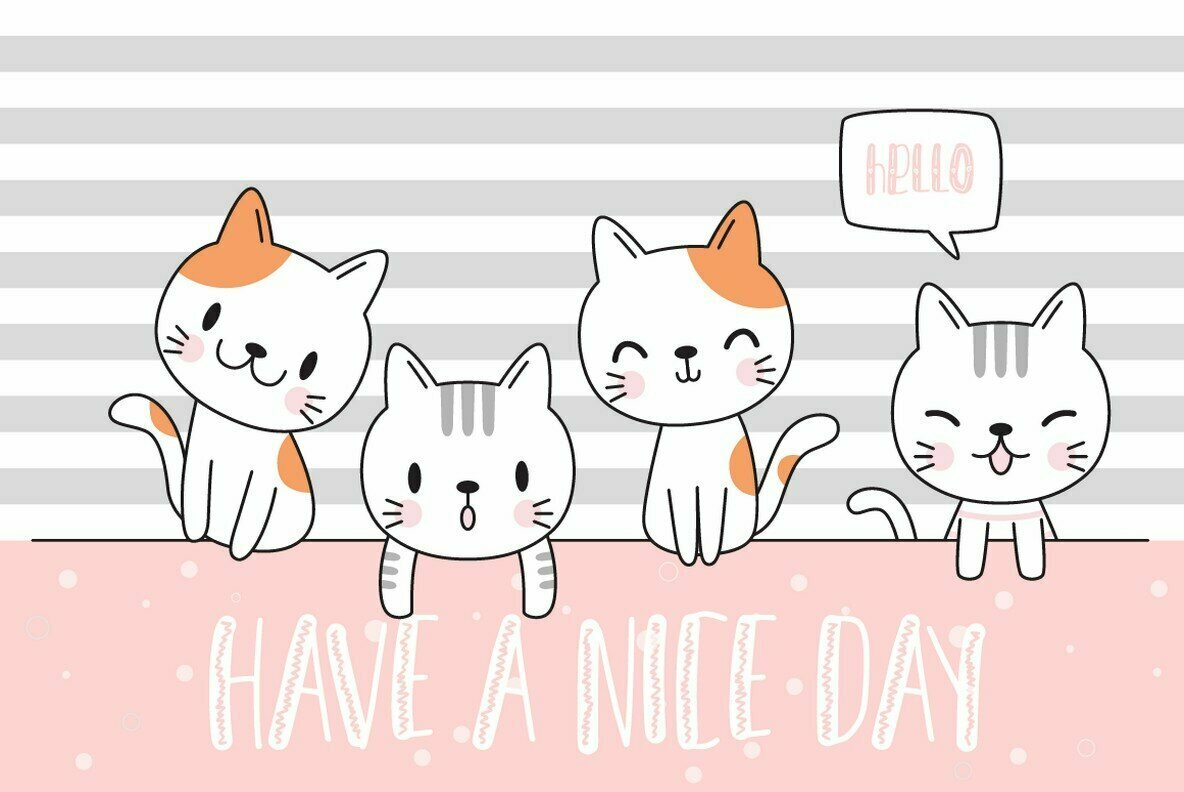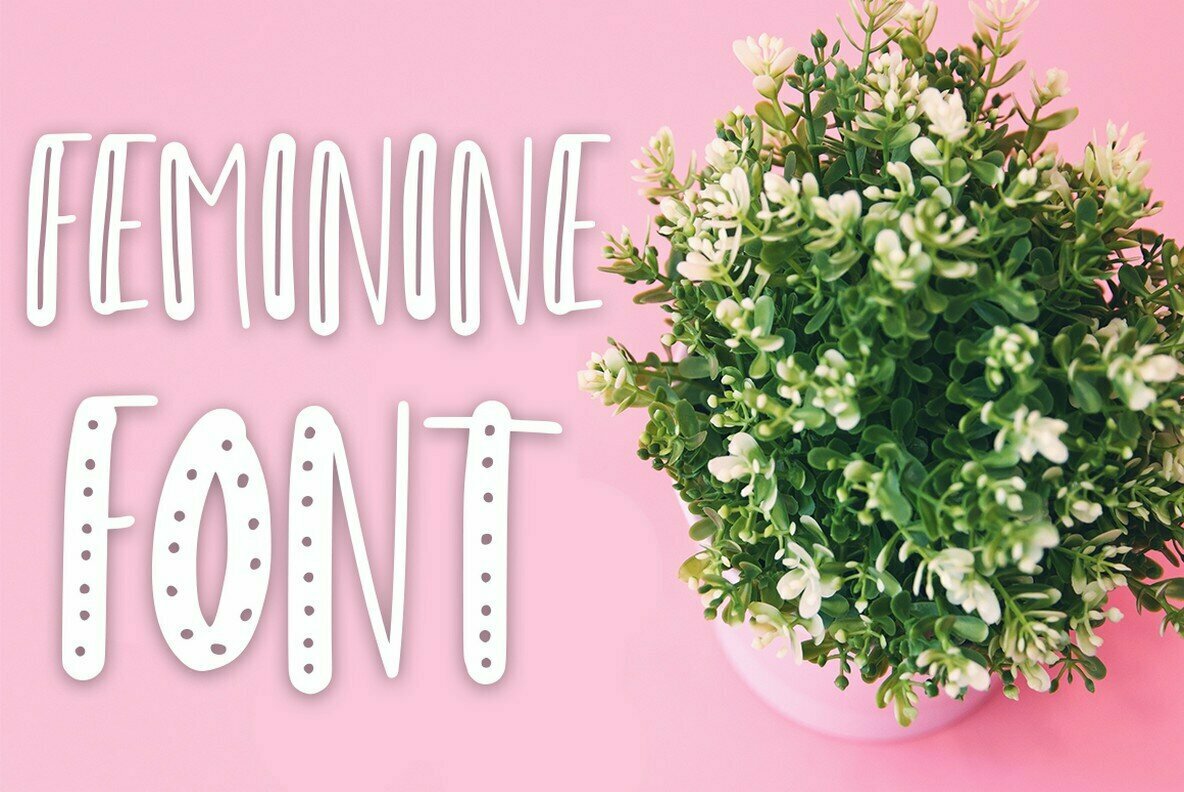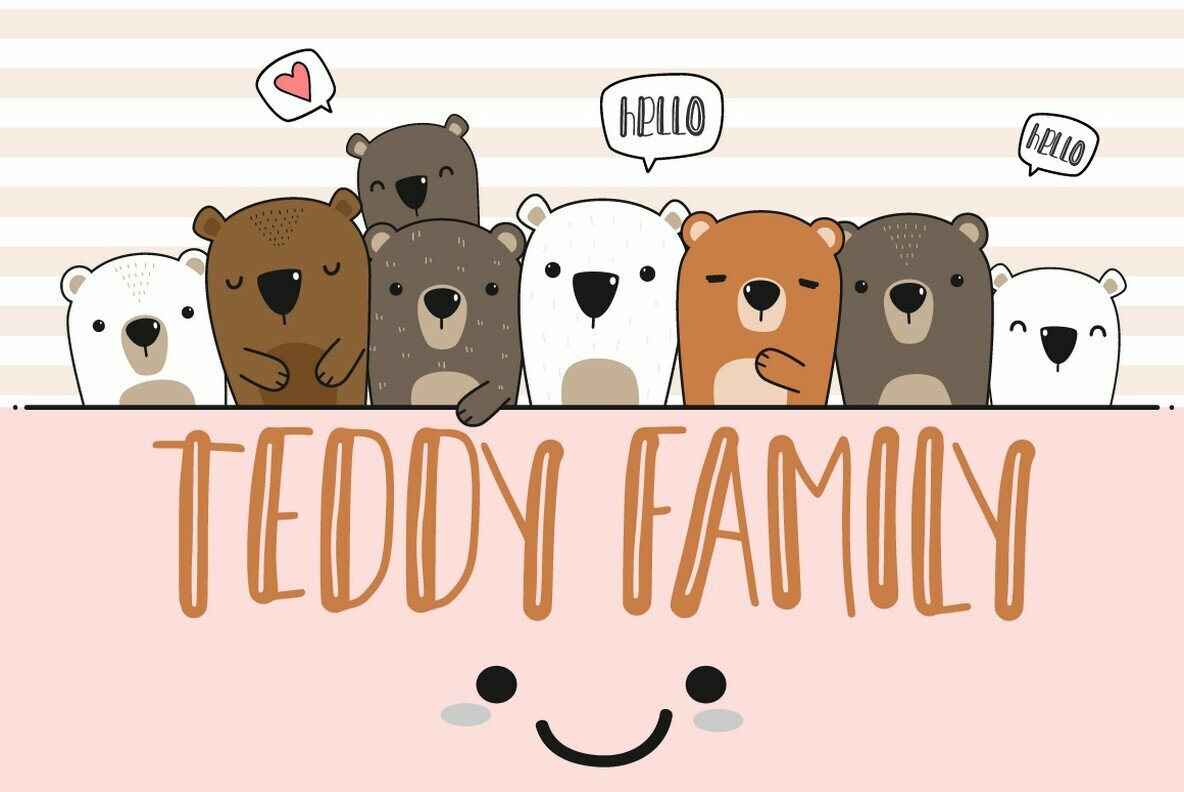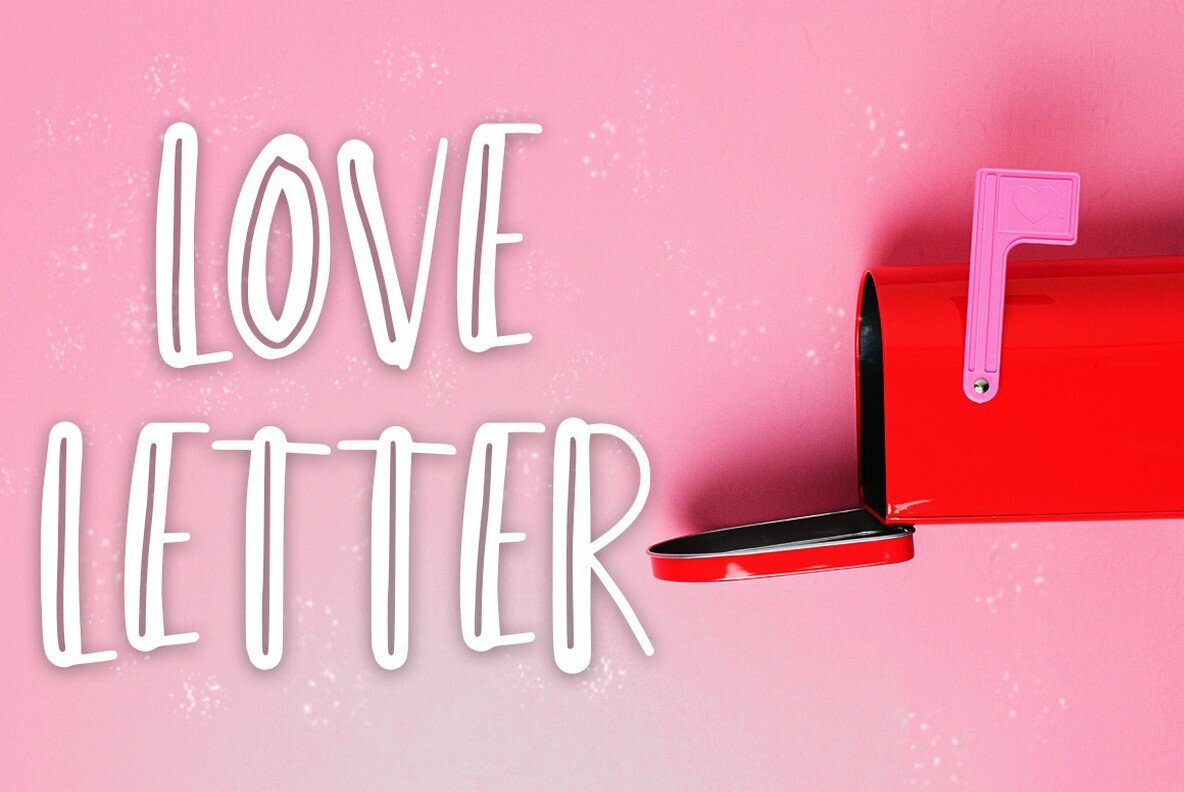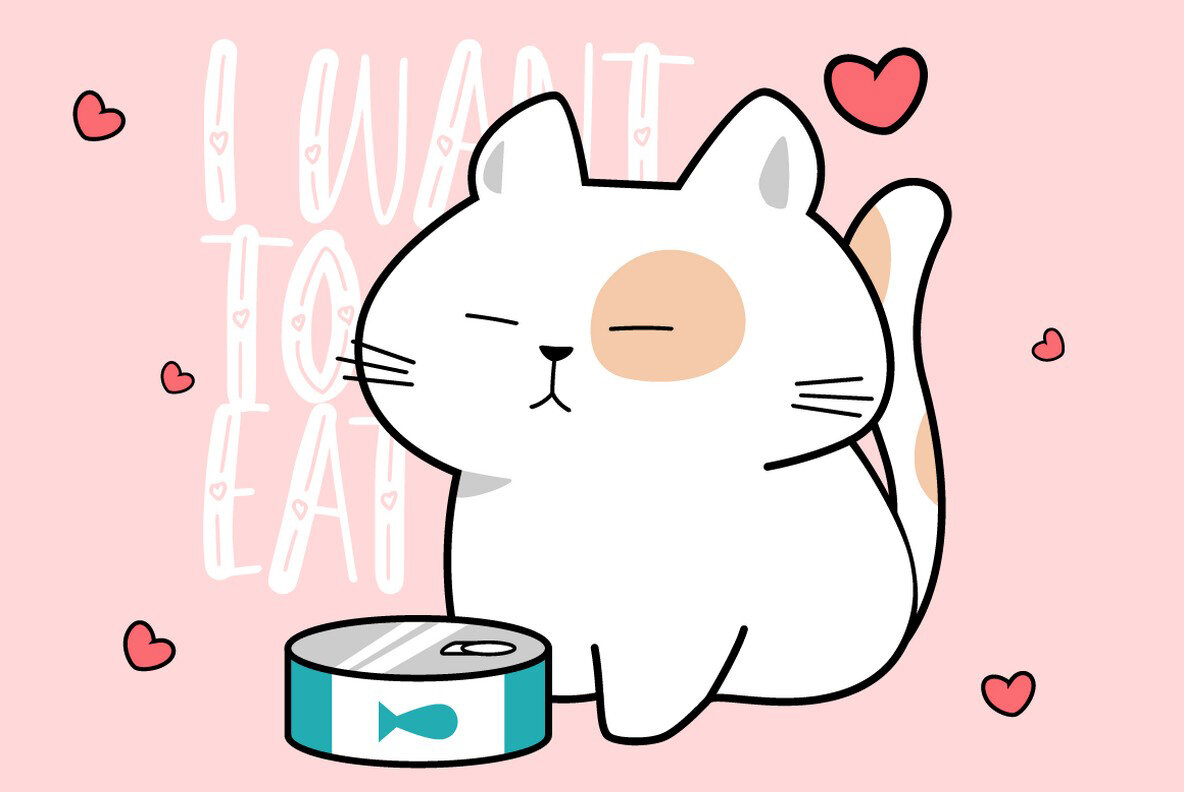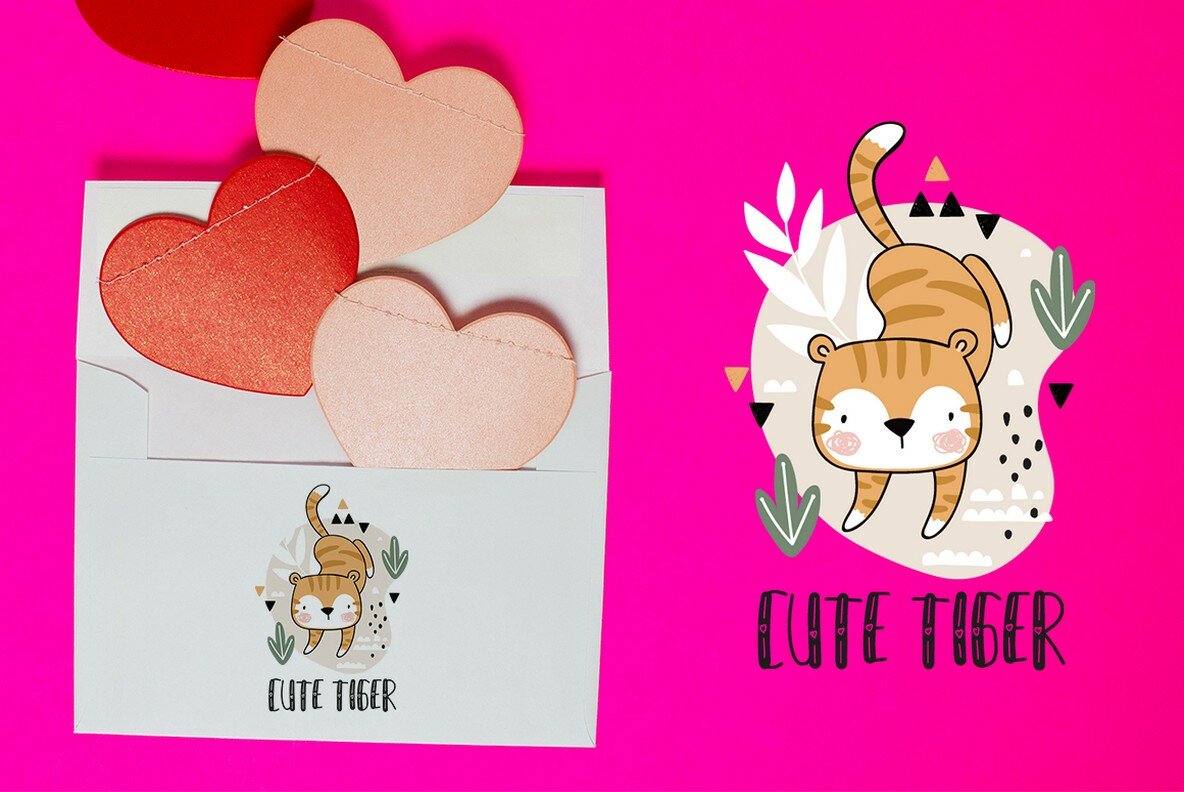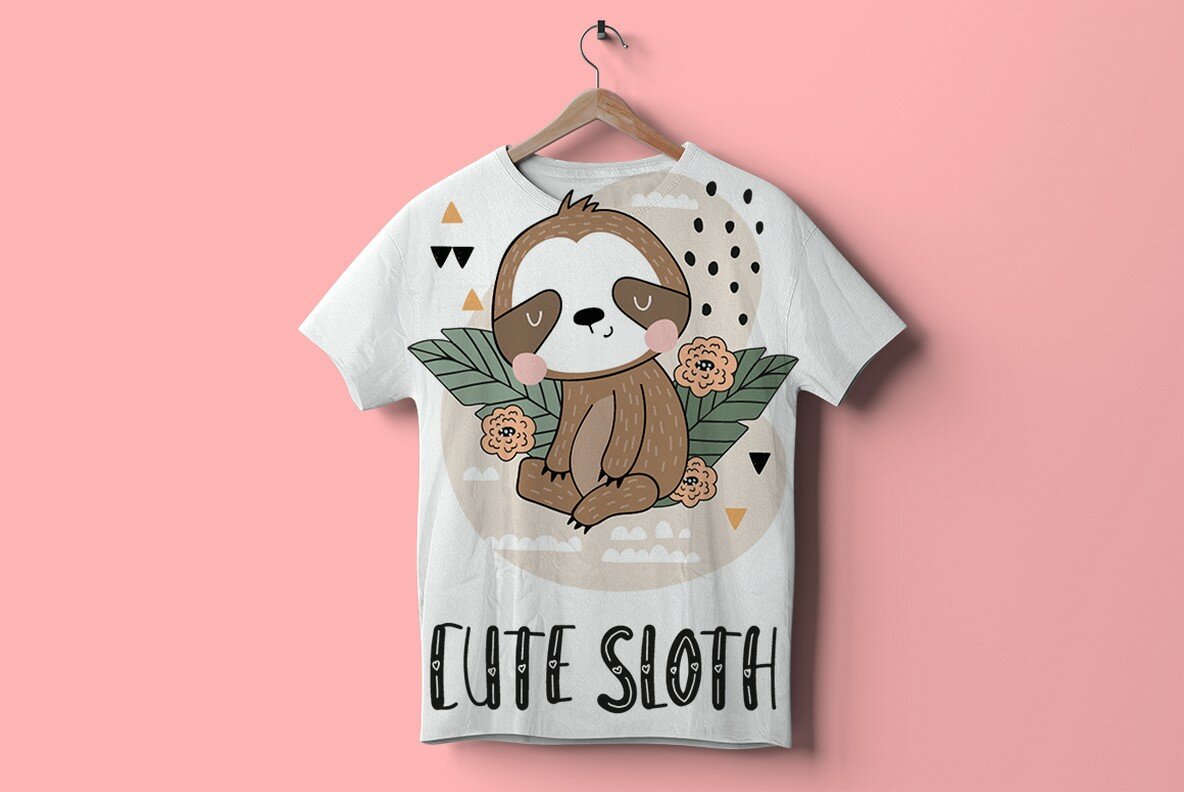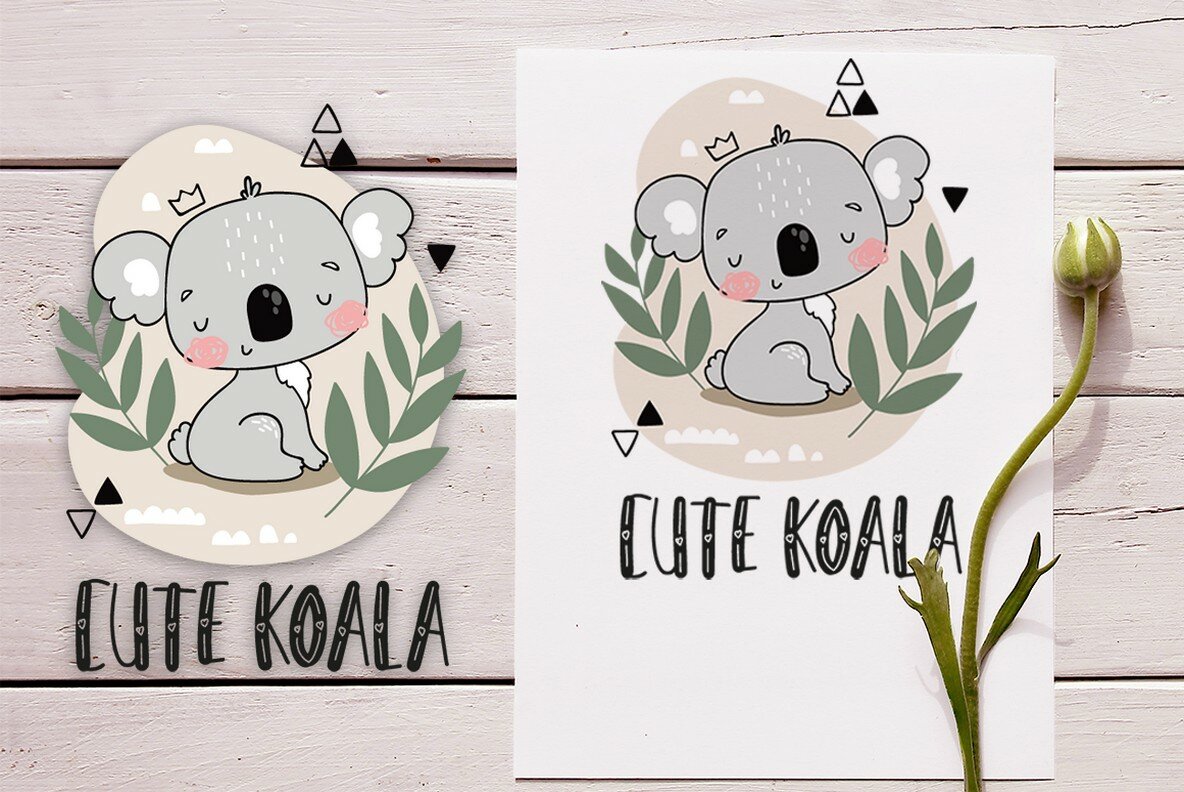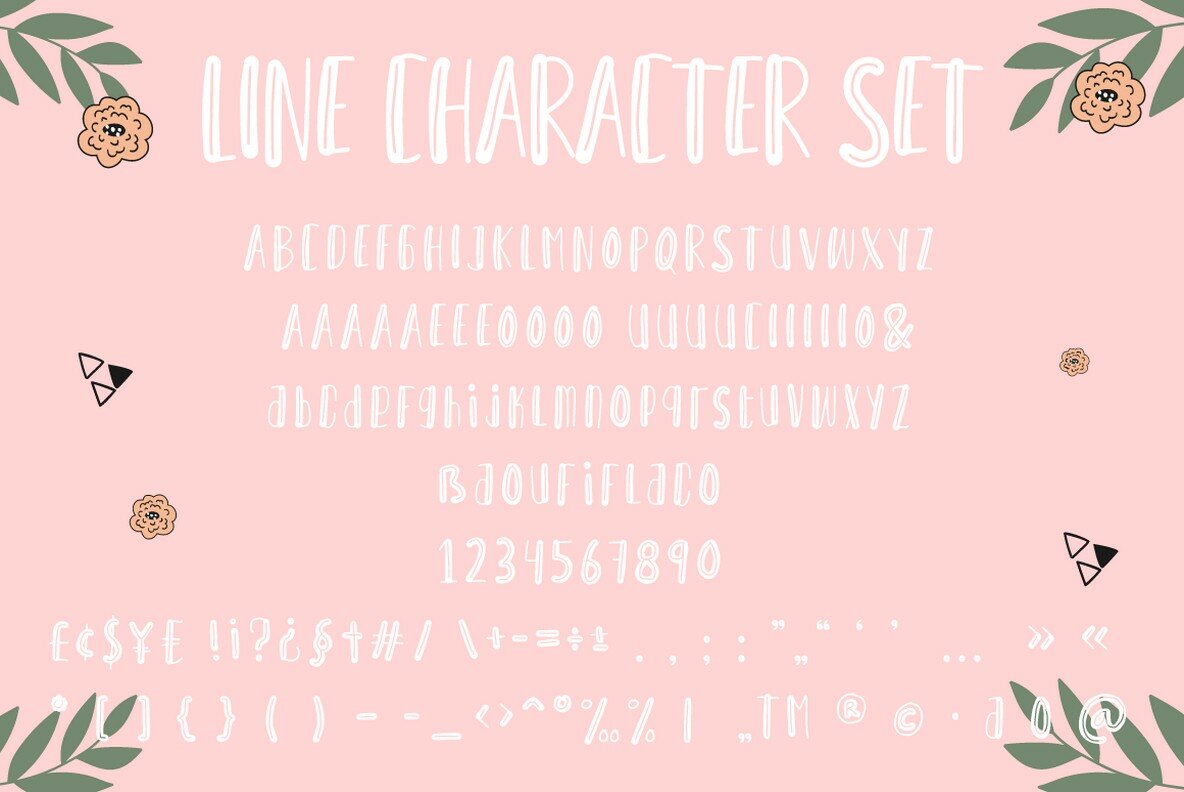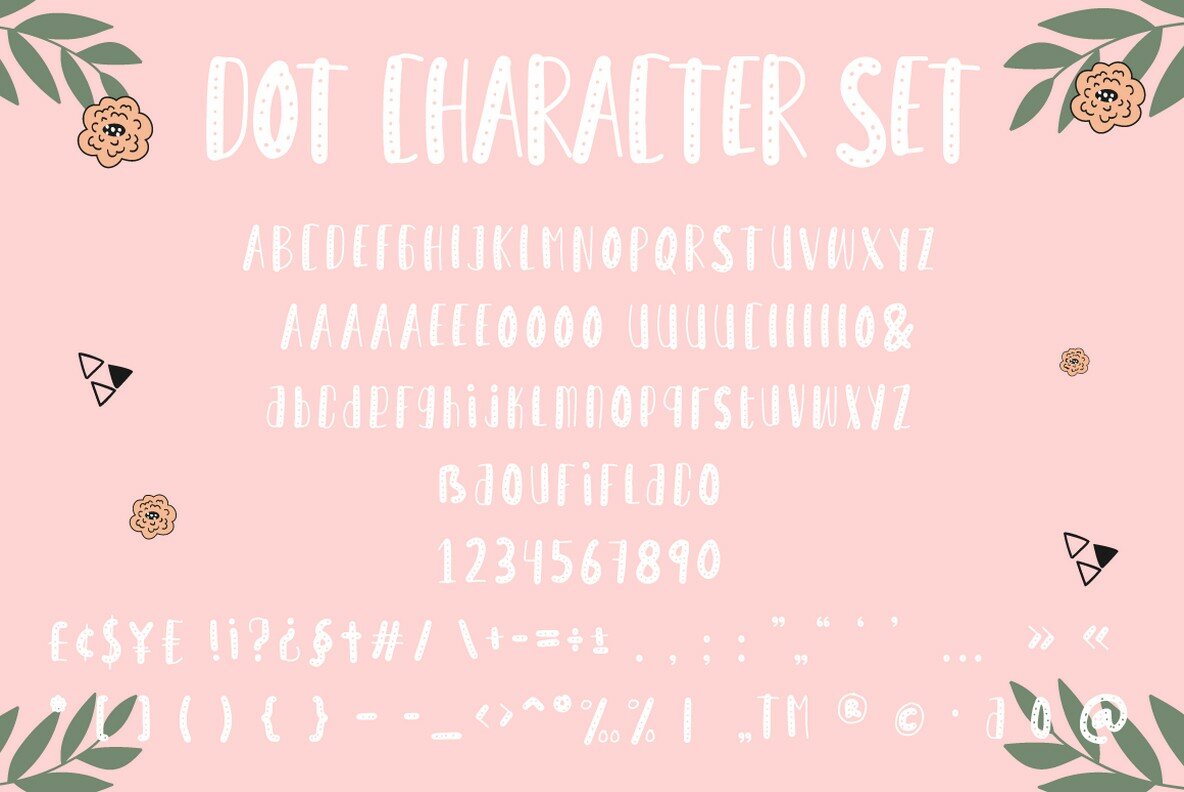
Honey Taste Font
Honey Taste Regular
Honey Taste Dot
Honey Taste Line
Honey Taste Love
Honey Taste ZigZag
Honey Taste is a versatile display font designed for creative projects seeking a dash of playful charm. With its five unique styles, this font offers a delightful variety for different design needs. It is perfect for logos, quotes, comics, books, greeting cards, toys, posters, baby clothing, and picture books—anywhere a sense of joy and happiness is desired. Features:Honey Taste: A Playful Display Font with Five Styles